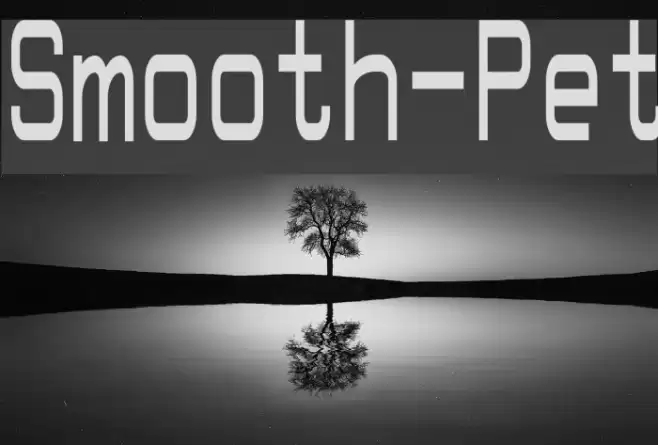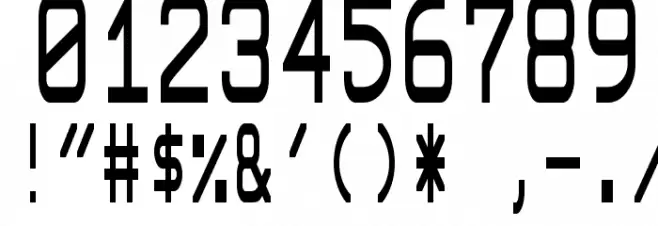
Smooth-Pet Font
Smooth-Pet Description
This font features a clean and modern sans-serif design with geometric influences. The characters are well-balanced with a uniform stroke width, providing a consistent and harmonious appearance. The uppercase letters are bold and assertive, while the lowercase letters maintain a friendly and approachable feel. The numerals are clear and legible, making them suitable for various applications. Special characters are included, enhancing the font's versatility. The overall style is contemporary, making it ideal for digital and print media.
A modern sans-serif font with geometric influences and uniform stroke width from Basic fonts.
- Proposed Projects: Ideal for branding, web design, advertising, and editorial projects.